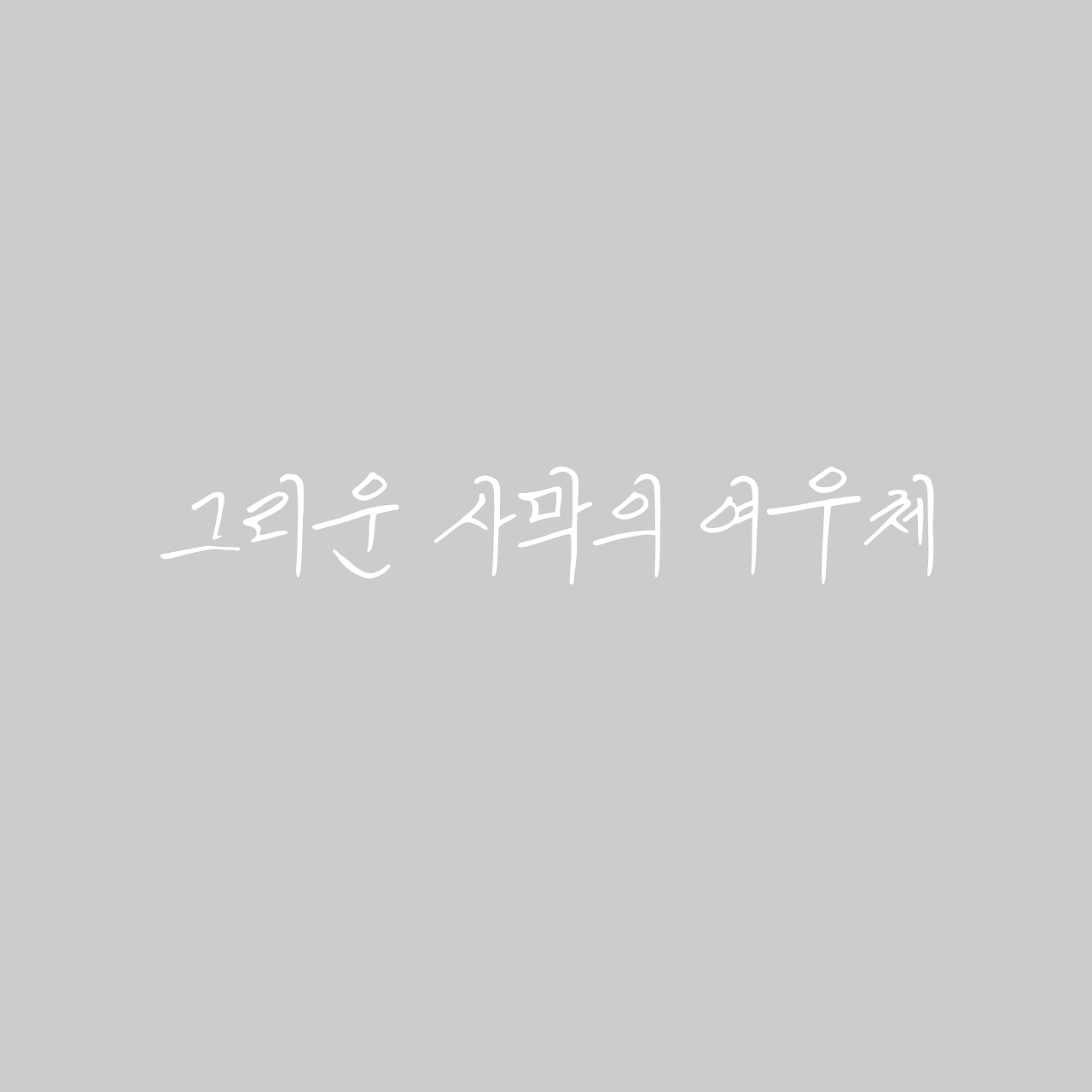
KCC_Sonkeechung
Son Kee-chung is a Korean athlete who competed during Japanese colonial era, and was the first Korean Olympic gold medalist in the marathon at the 1936 Summer Olympics. It was intended to capture Son Kee-chung's sports spirit in the typeface, and it was set in the direction of production by reflecting Son Ki-jung's handwritten traces and writing skills. It is a handwriting style with small consonants and sharp writing. The longitudinal columns of the vowels 'ㅣ, ㅏ, ㅑ, ㅓ, ㅕ’ reflect the characteristics of stretching up and down and bending toward the end. We adjusted the thickness considering usability while reflecting the individuality of the original. By setting various initial and final forms that vary depending on the type, it was produced to make use of the naturalness of the handwriting to avoid excessive simplification.
- KCC손기정체 / KCC_Sonkeechung